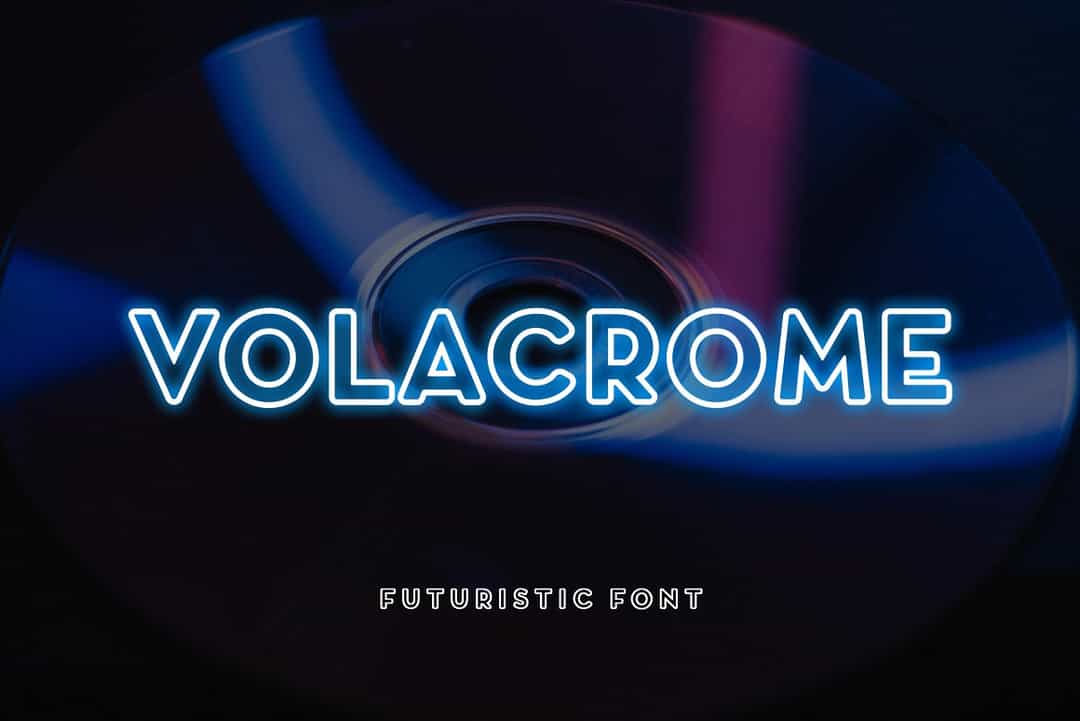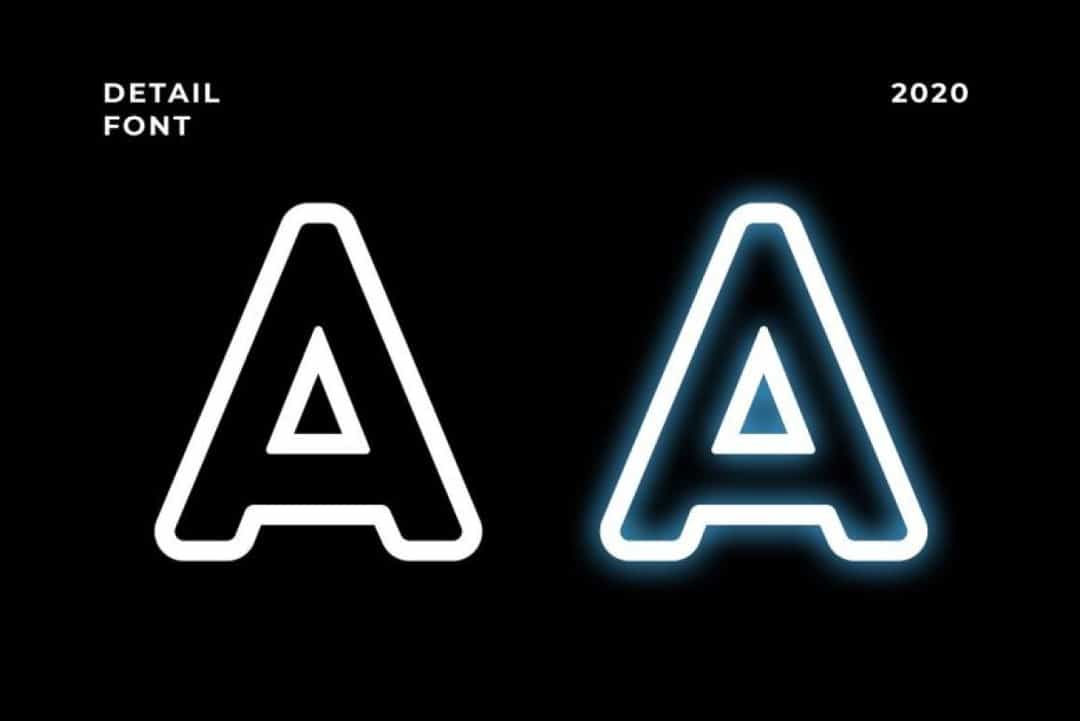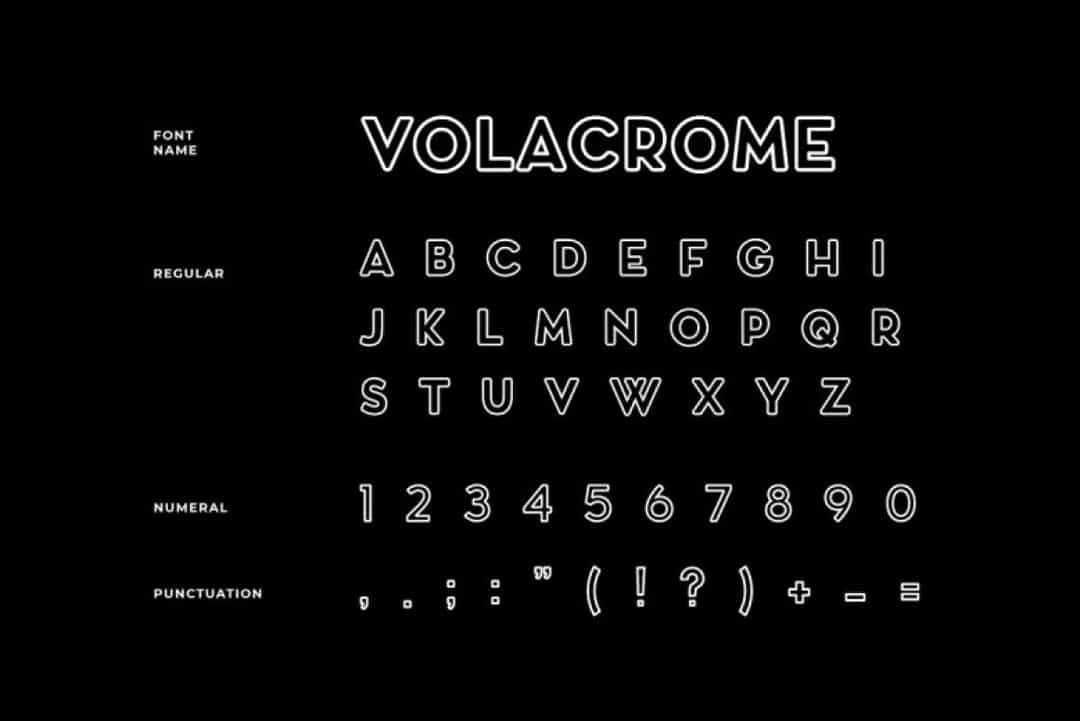
Volacrome font is an elegant and beautiful moderated sans serif style fonts that features minimalist design elements, creating elegant and beautiful fonts with every character you need to express yourself easily and find your personal style effortlessly.